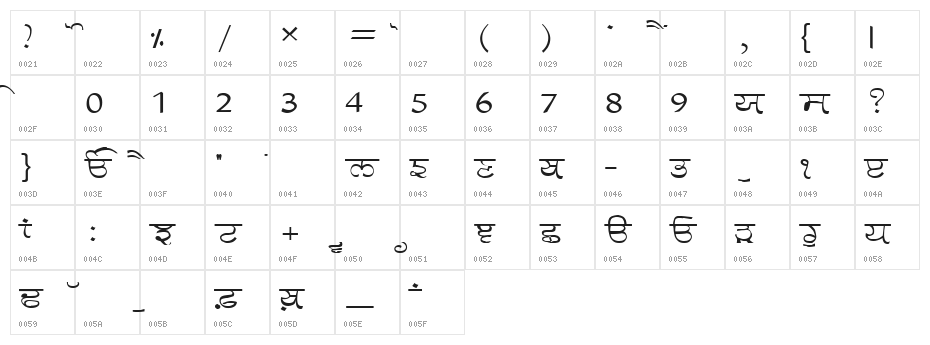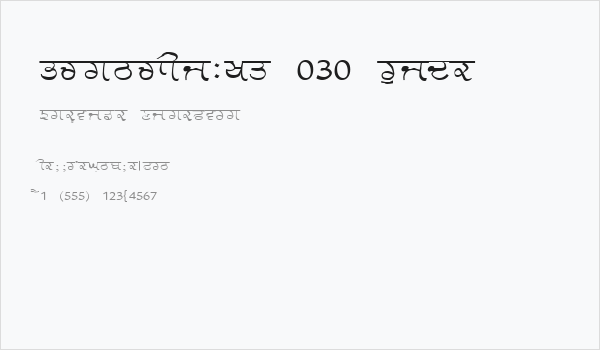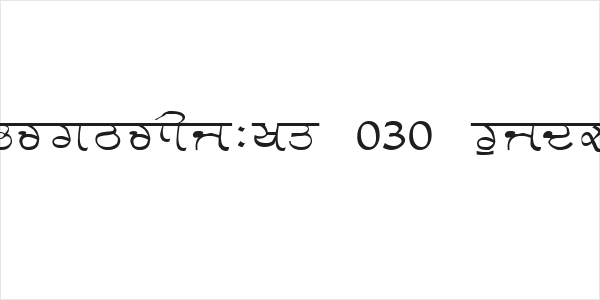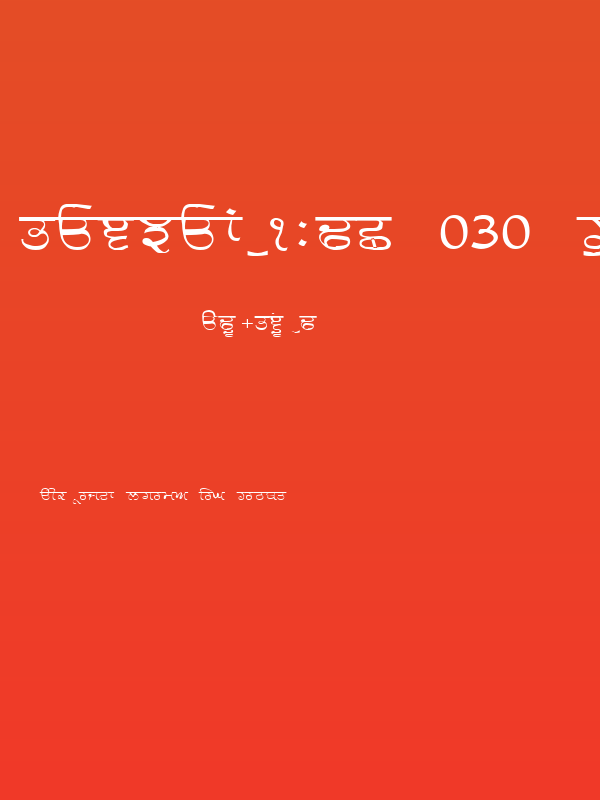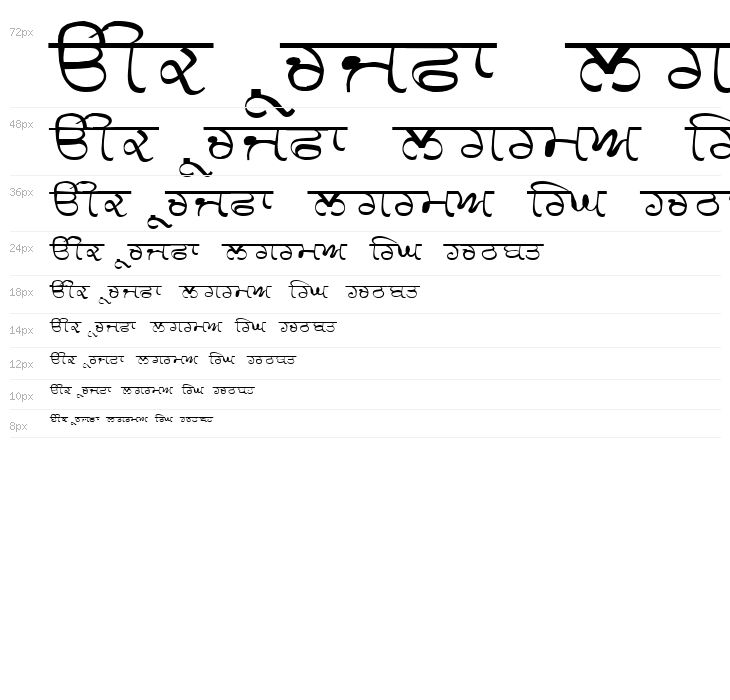
GurmukhiLys 030 Wide Font
This font features the Gurmukhi script, characterized by its distinct horizontal line running along the top of the letters, known as the sihari. The characters are elegantly curved with a moderate stroke contrast, providing a balanced and readable appearance. The numerals are bold and clear, matching the style of the script. Special characters are designed to complement the overall aesthetic, maintaining consistency throughout. The font's style is traditional yet versatile, suitable for various applications.
Overall StyleTraditional
Use CaseHeadlines, Body text, Cultural content
Proposed ProjectsIdeal for cultural publications, educational materials, signage, and digital content that requires Gurmukhi script.